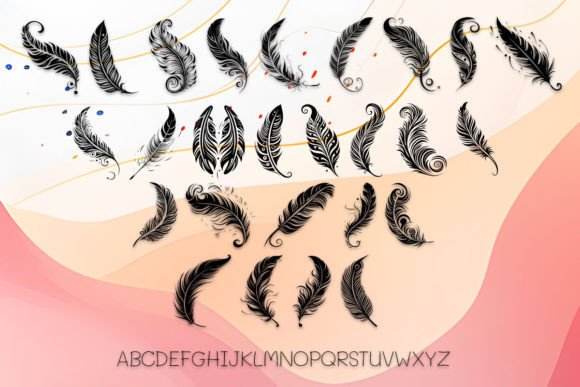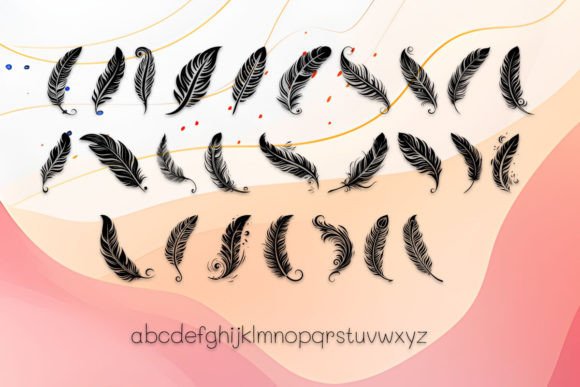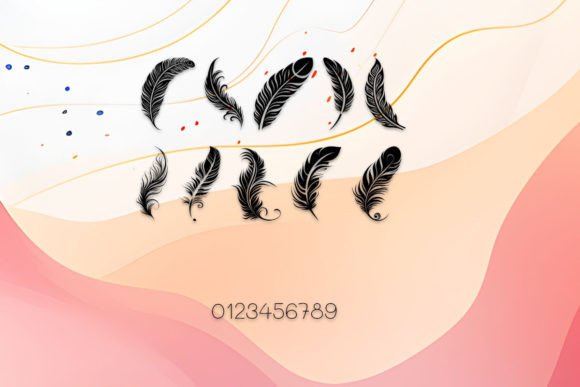
Discover the Essence of Maori Culture with Freedom Maori Feathers Font
Immerse yourself in the rich heritage of Maori culture with our stunning Freedom Maori Feathers Font, a unique collection of dingbats fonts that will elevate your designs, projects, and messages to new heights. This digital collection is a treasure trove of creativity, featuring 26 captivating uppercase and 26 lowercase letters, along with numbers 0-9, all infused with the spirit of Maori tradition.
Unleash Your Creativity with Maori Feathers Dingbats Fonts
Our Freedom Maori Feathers Font is more than just a collection of fonts – it’s a gateway to a world of creative expression. Each letter, number, and symbol is carefully crafted to reflect the essence of Maori culture, allowing you to add a touch of authenticity and depth to your digital creations. Whether you’re a designer, crafter, or simply someone who appreciates the beauty of Maori art, this font collection is sure to inspire.
Key Features of Freedom Maori Feathers Font
- 26 Uppercase Letters: Each uppercase letter is a masterpiece, showcasing the intricate designs and patterns characteristic of Maori art.
- 26 Lowercase Letters: The lowercase letters are just as stunning, offering a range of creative possibilities for your designs and projects.
- Numbers 0-9: Add a touch of authenticity to your digital creations with our range of numbers, each infused with Maori flair.
- Culturally Rich and Unique: Our Maori Feathers Dingbats Fonts are designed to help you stand out from the crowd, adding a unique and culturally rich element to your work.
Applications of Freedom Maori Feathers Font
The versatility of our Maori Feathers Font collection makes it suitable for a wide range of applications, including:
- Graphic Design: Add a touch of Maori elegance to your logos, branding, and marketing materials.
- Crafting: Use our fonts to create stunning handmade cards, gift tags, and other paper crafts.
- Digital Art: Incorporate Maori-inspired typography into your digital art, illustrations, and mixed media projects.
- Web Design: Enhance your website’s visual appeal with our unique and culturally rich fonts.
Why Choose Freedom Maori Feathers Font?
By choosing our Maori Feathers Font collection, you’re not only gaining access to a unique and versatile font collection, but you’re also supporting the preservation and celebration of Maori culture. Our fonts are designed to be:
- High-Quality: Our fonts are crafted with attention to detail, ensuring they look great in any application.
- Culturally Sensitive: We’re committed to respecting and honoring Maori culture, ensuring our fonts are used in a way that’s authentic and respectful.
Discover the essence of Maori culture with our stunning Freedom Maori Feathers Font collection. With its unique blend of traditional Maori designs and modern typography, this digital collection is perfect for designers, crafters, and anyone looking to add a touch of cultural richness to their work. Unlock the power of expression and creativity – download our Maori Feathers Dingbats Fonts today and start elevating your designs to new heights!